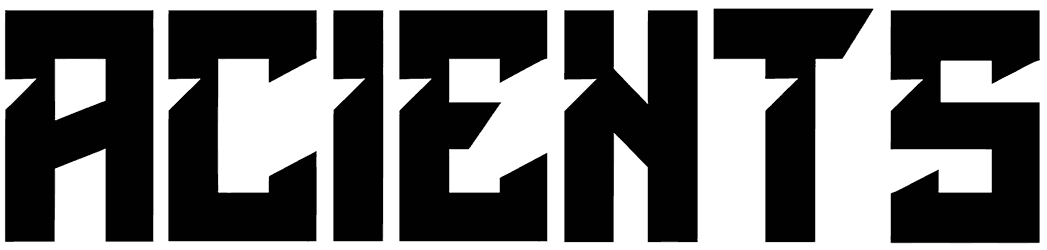
Acients Font
How awesome do you think it would be to give your typography design a futuristic and techno vibe? Our Esports font library contains one of the finest fonts, like Acients, which would be perfect for games, movies, advertisements, and logos.
This exceptional font might not come with lowercase, but you get a smaller size of the uppercase instead. At RB, you can access some superb geometric fonts.